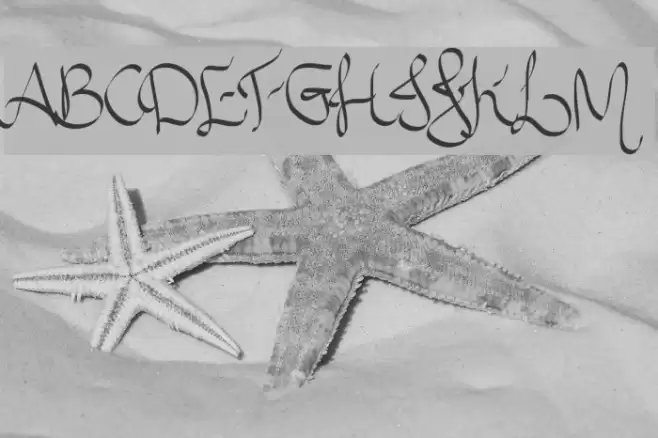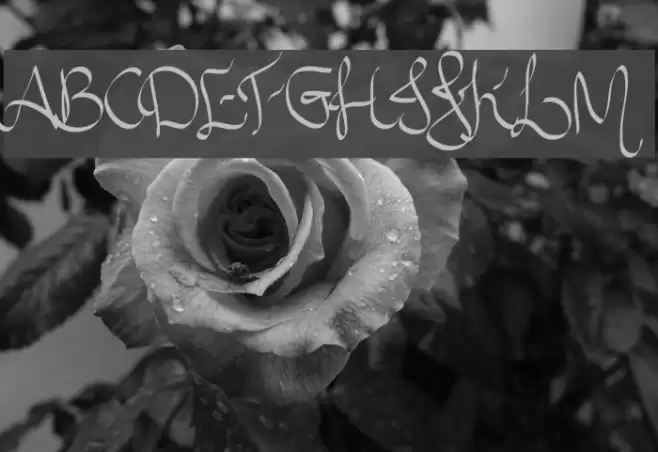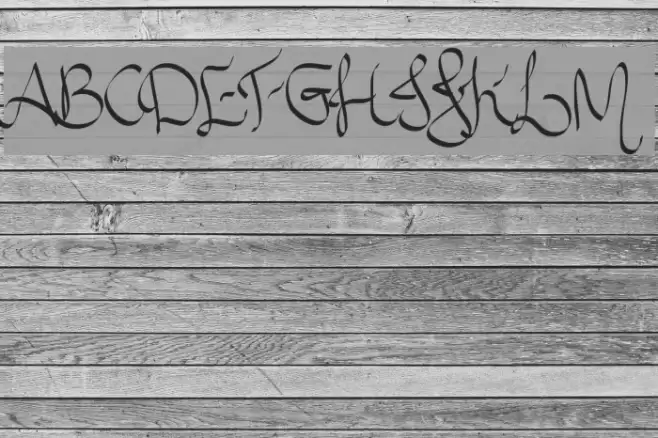
Allura Script Font
Allura Script Description
This elegant script font features fluid, cursive strokes that give it a graceful and sophisticated appearance. The letters are connected with smooth, flowing lines, creating a sense of continuity and movement. The uppercase characters are ornate, with flourishes that add a touch of formality, while the lowercase letters maintain a more understated elegance. The numerals and special characters are designed to complement the overall style, ensuring consistency throughout. This font is perfect for projects that require a touch of class and refinement.
A graceful and elegant script font with fluid, cursive strokes from Handwritten fonts.
- Proposed Projects: Ideal for wedding invitations, elegant branding, greeting cards, and formal event materials.
- Overall Style: Elegant
- Use Case: Logos, Invitations, Decorative text